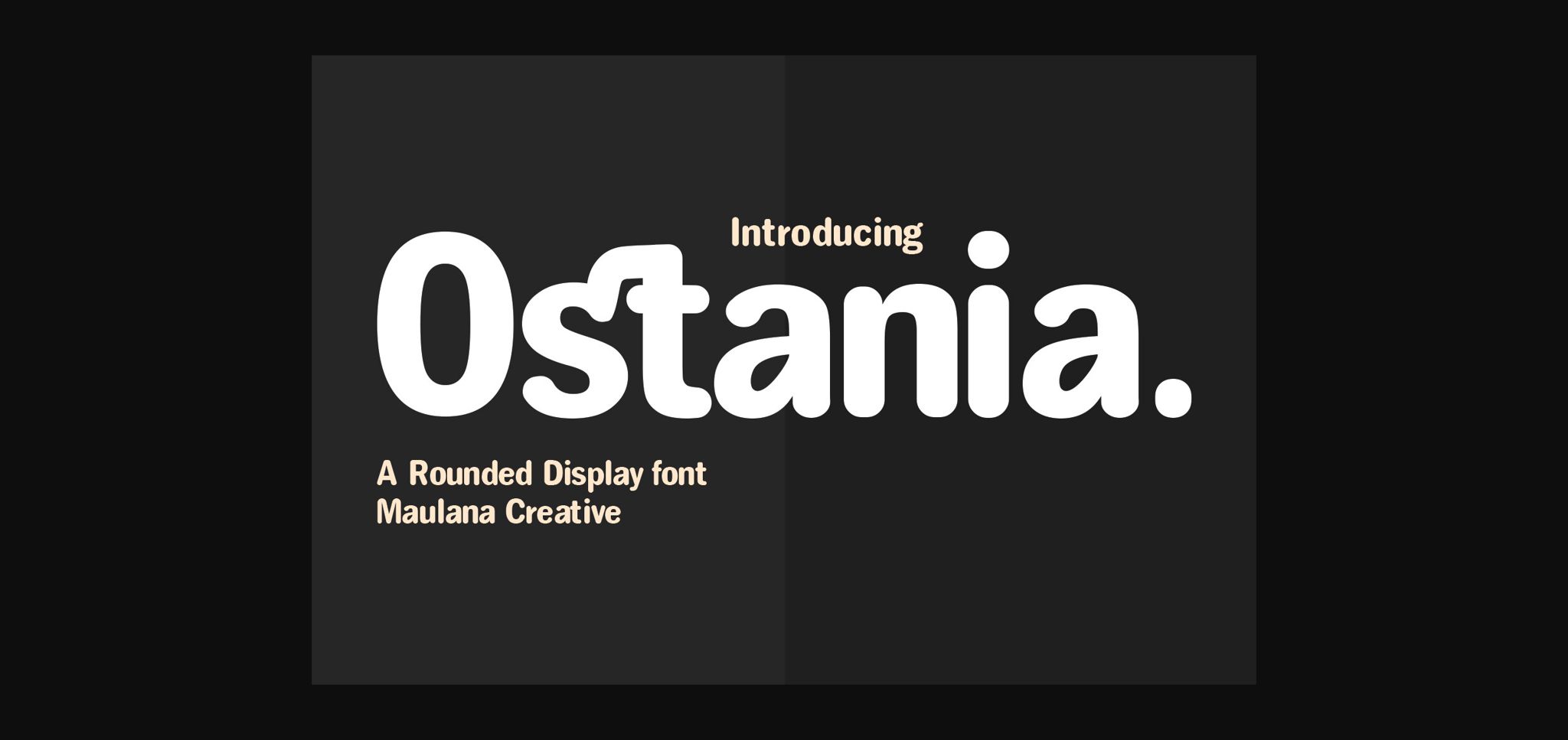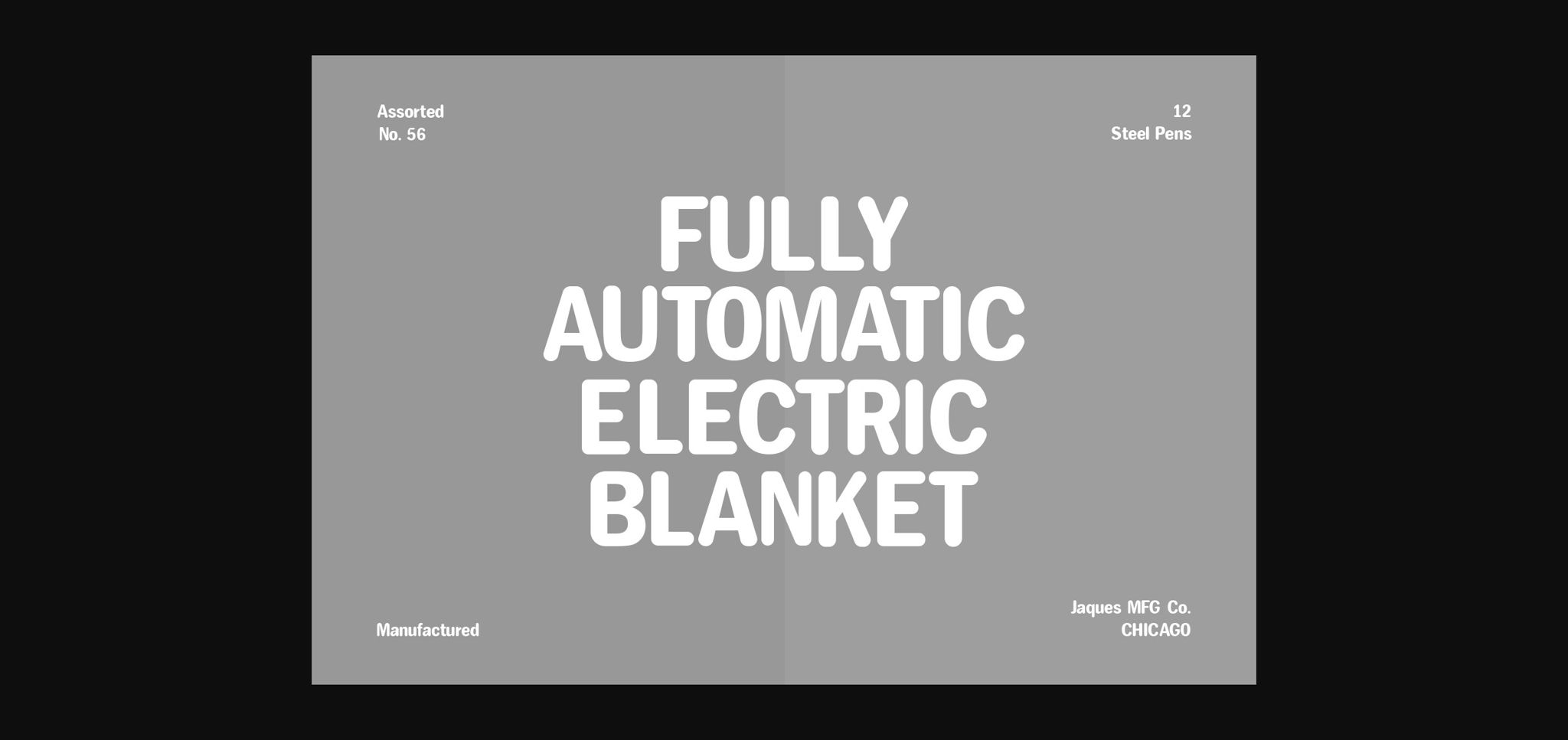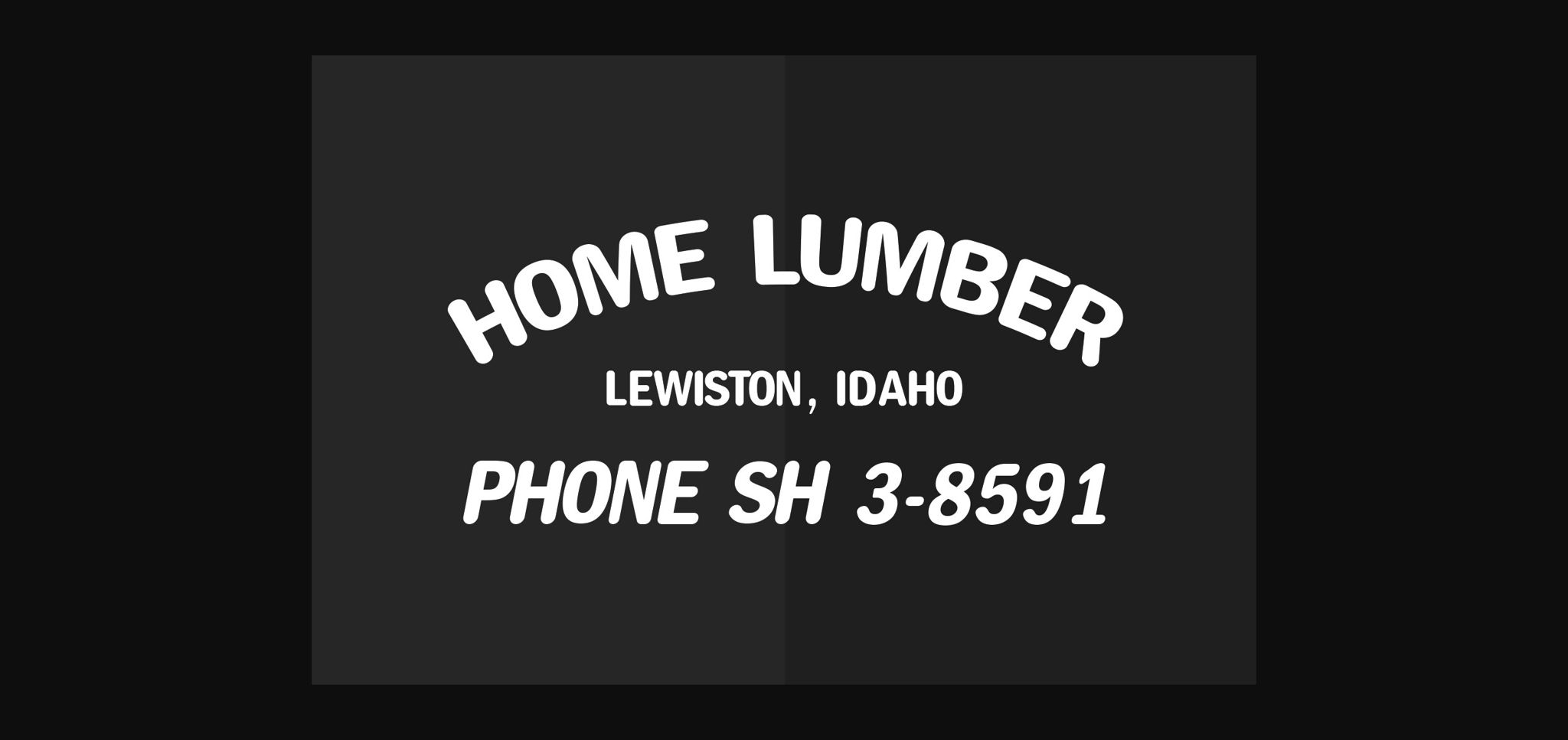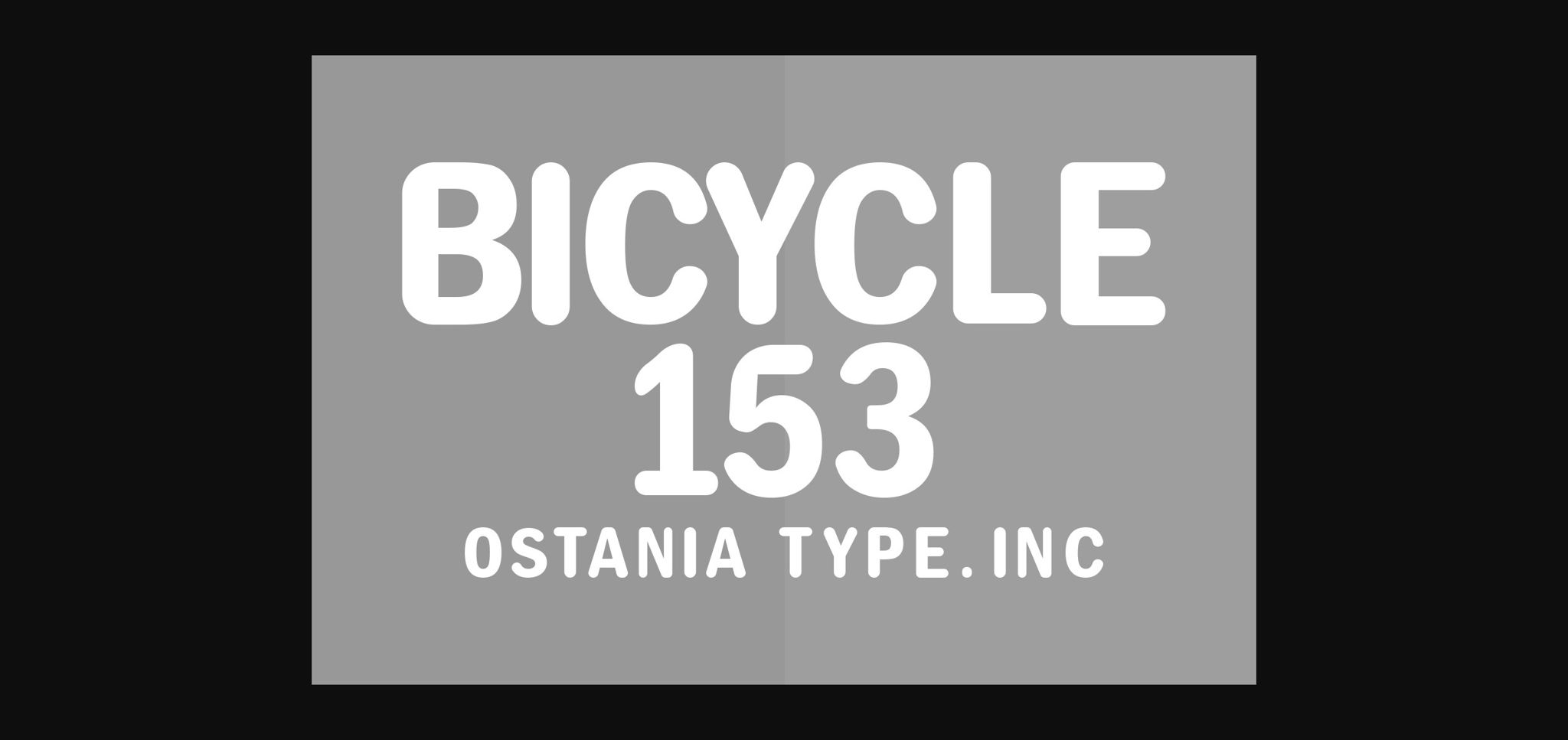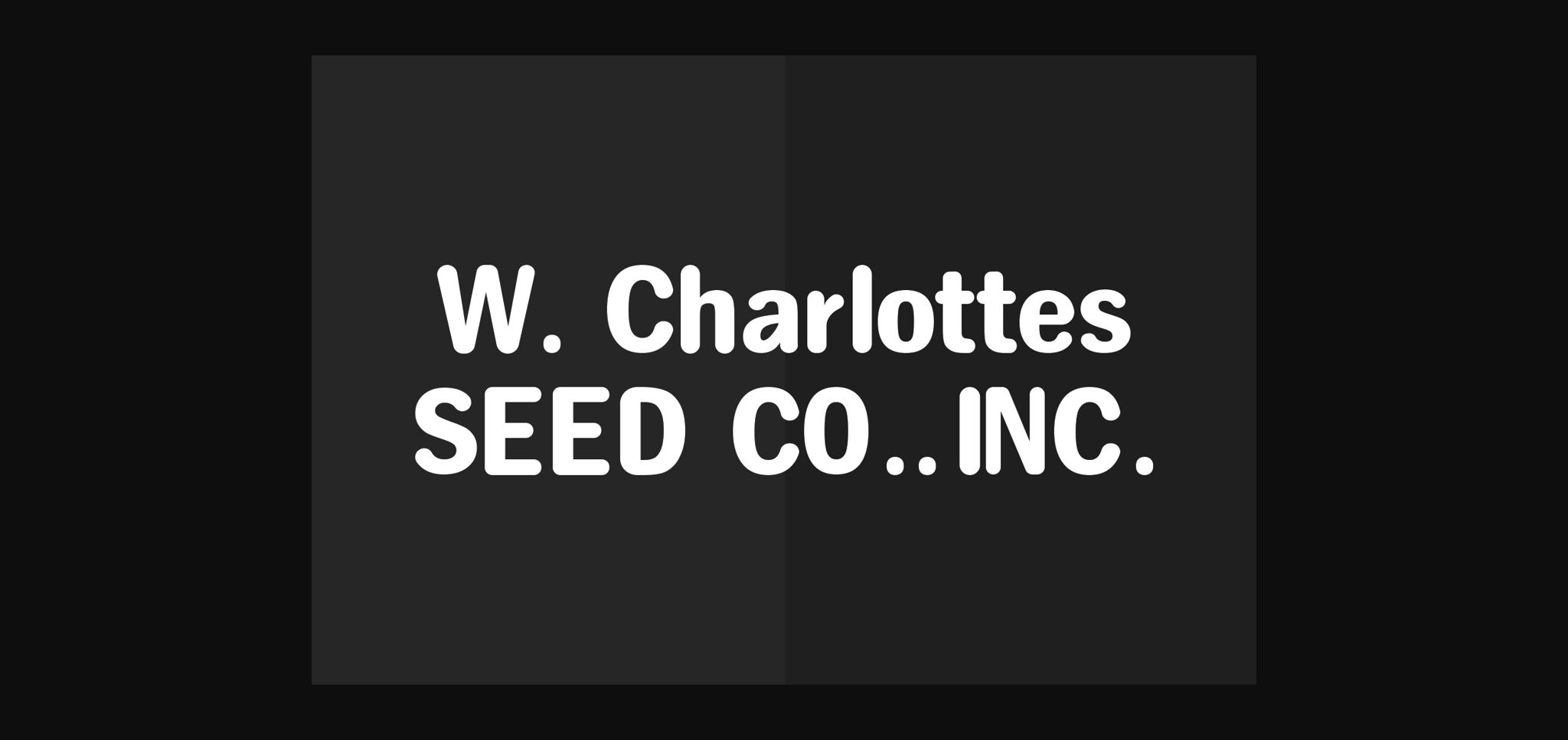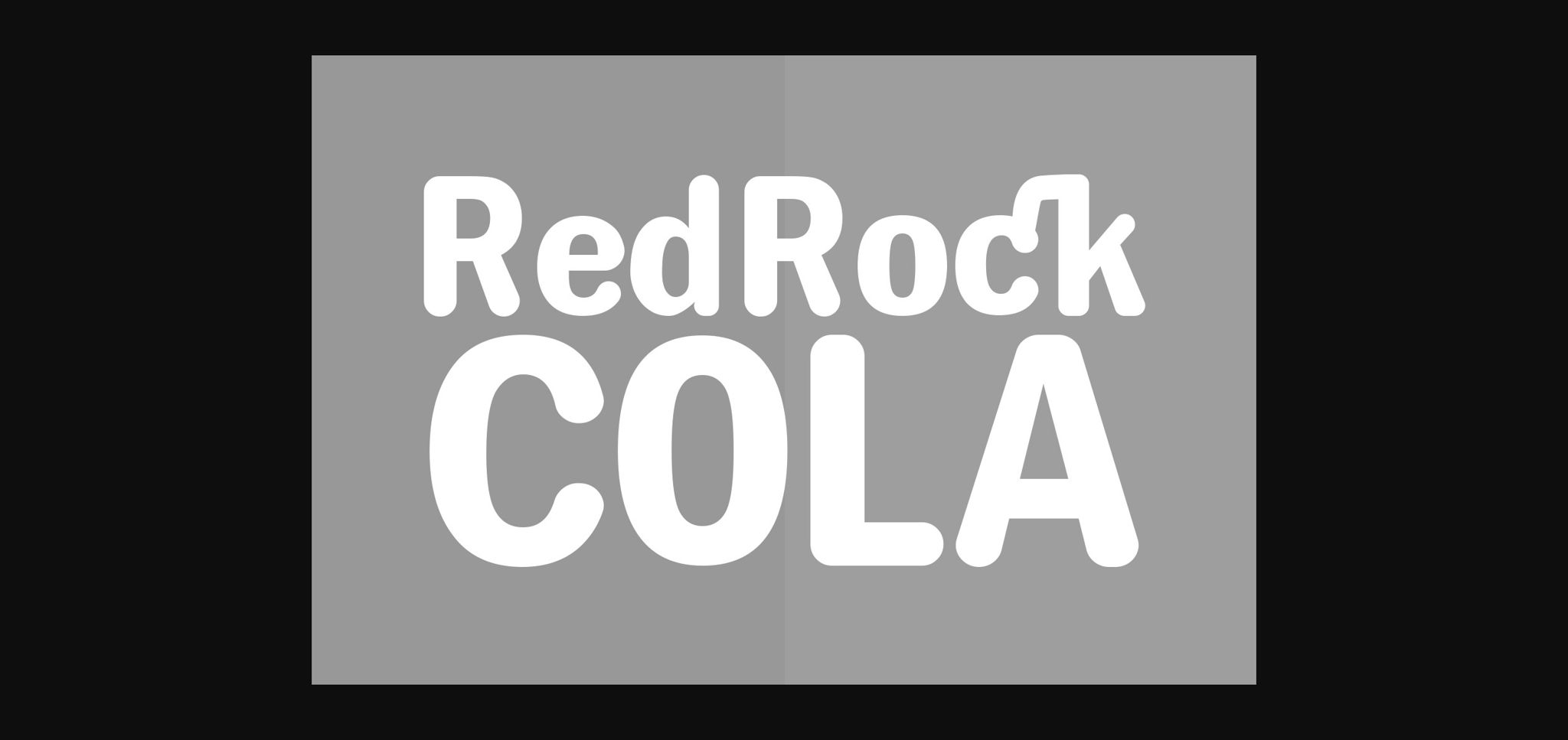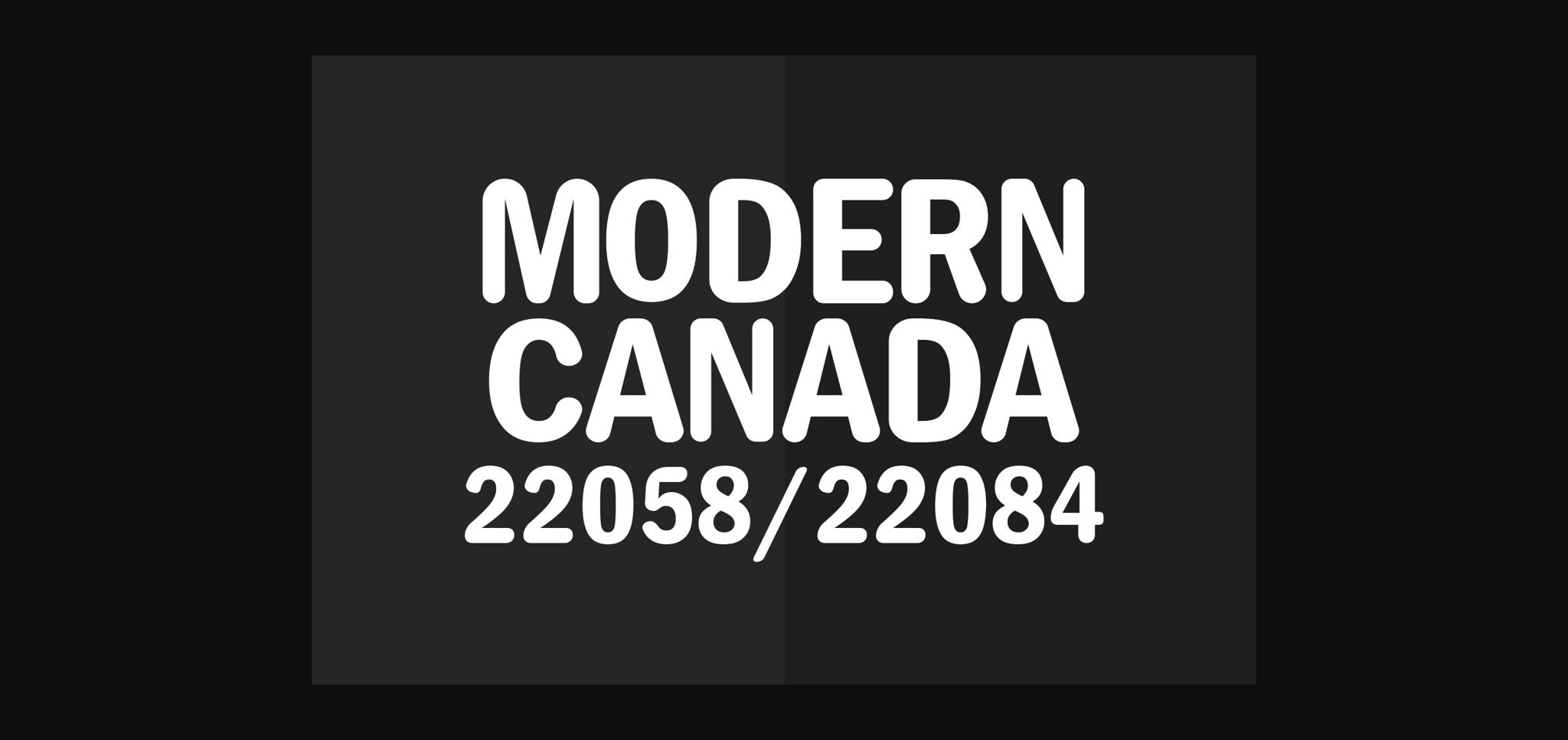
Ostania Font
About Ostania Font
Ostania is a bold and assertive rounded sans serif font. No matter the topic, this font will be an incredible asset to your fonts’ library, as it has the potential to elevate any creation.